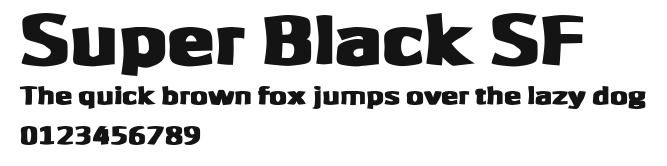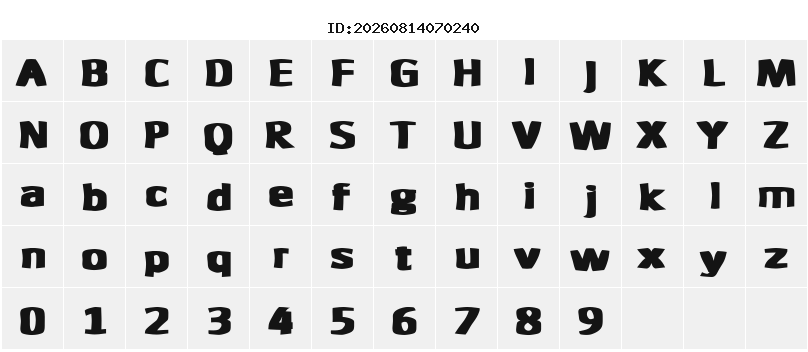
• Font Name: Super Black SF
• Full Font Name: Super Black SF
Super Black SF.ttf is a modern, elegant sans-serif font designed for ultimate readability and visual harmony. Perfect for branding, headlines, web design, and print materials.